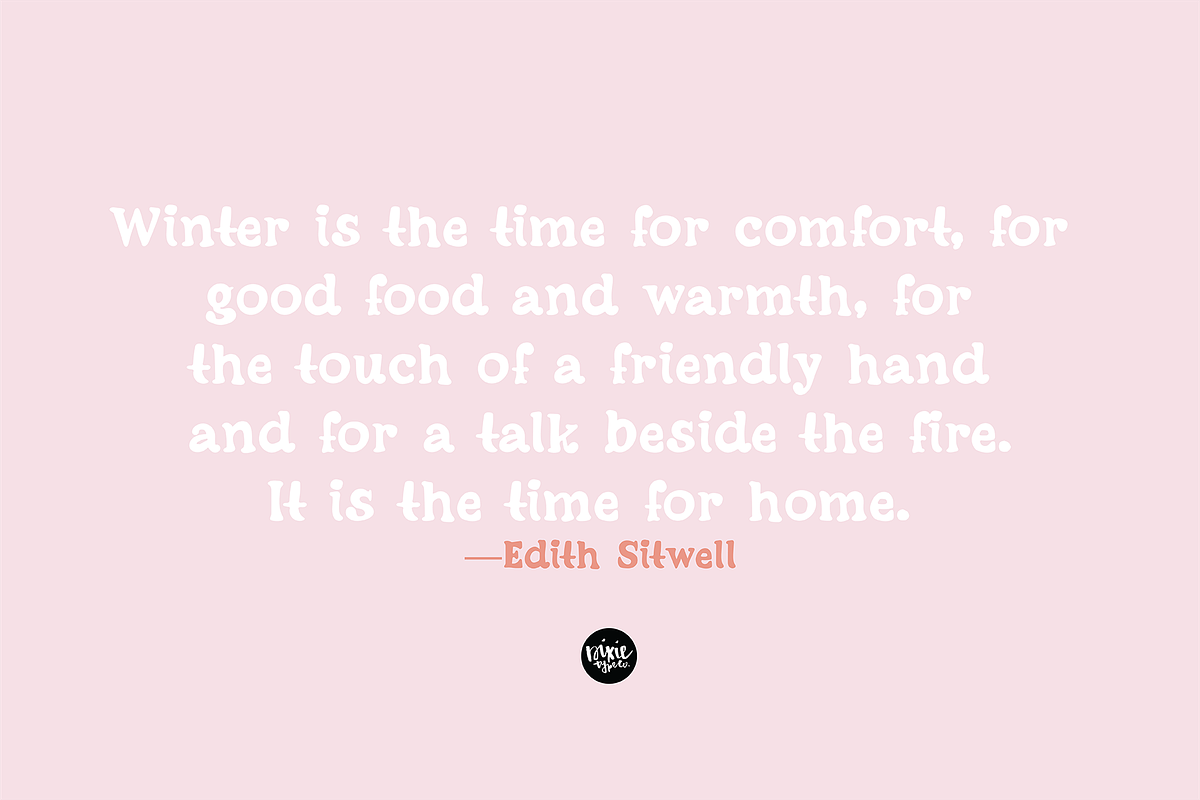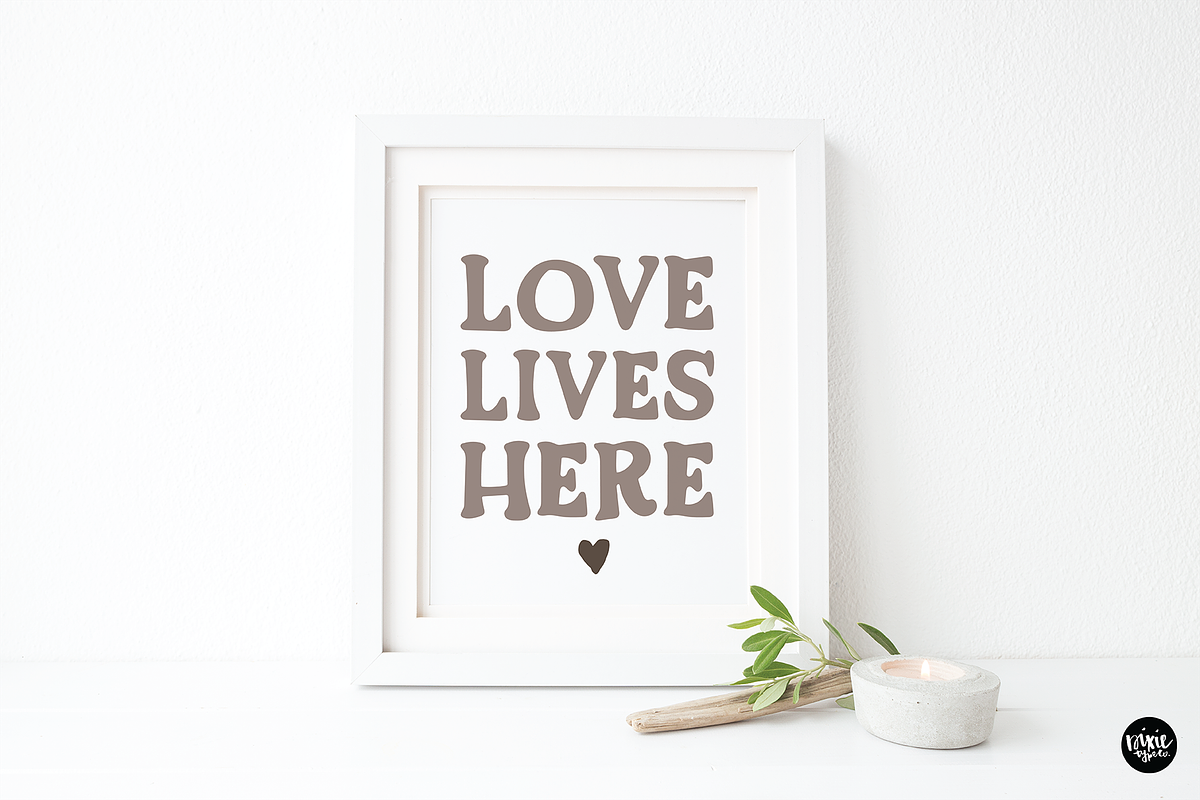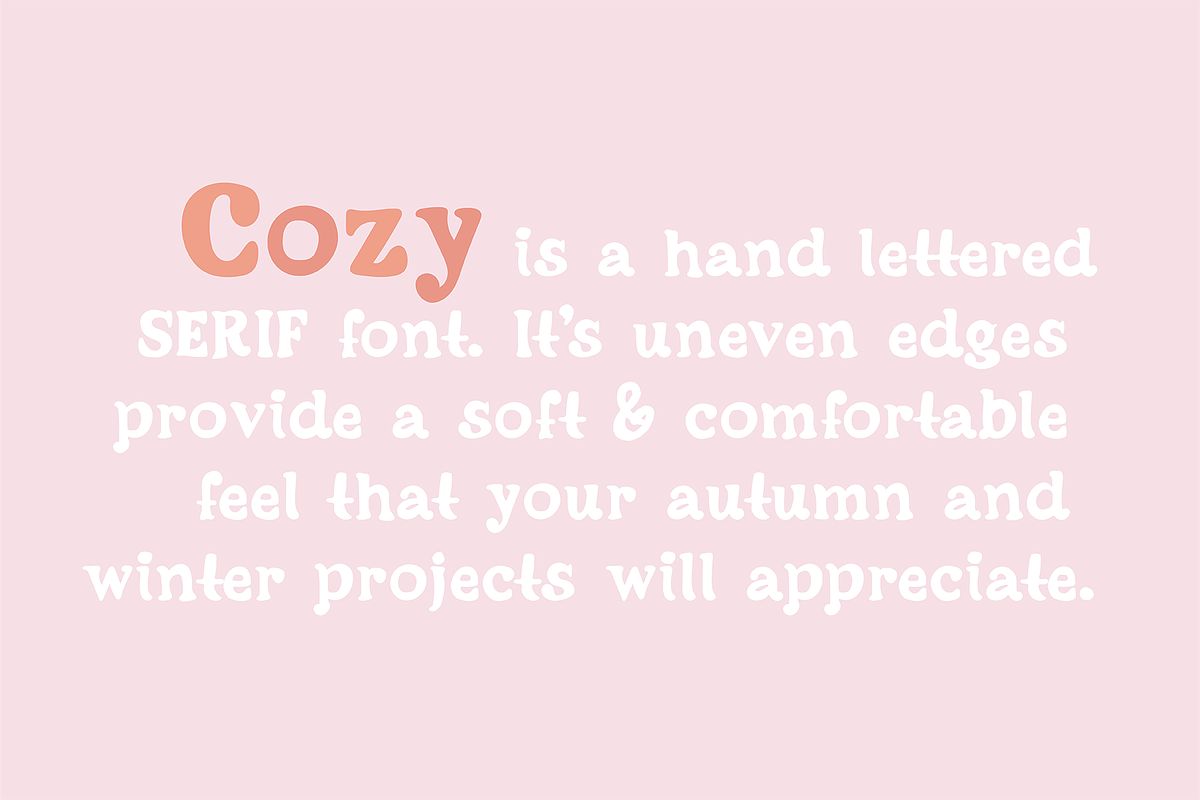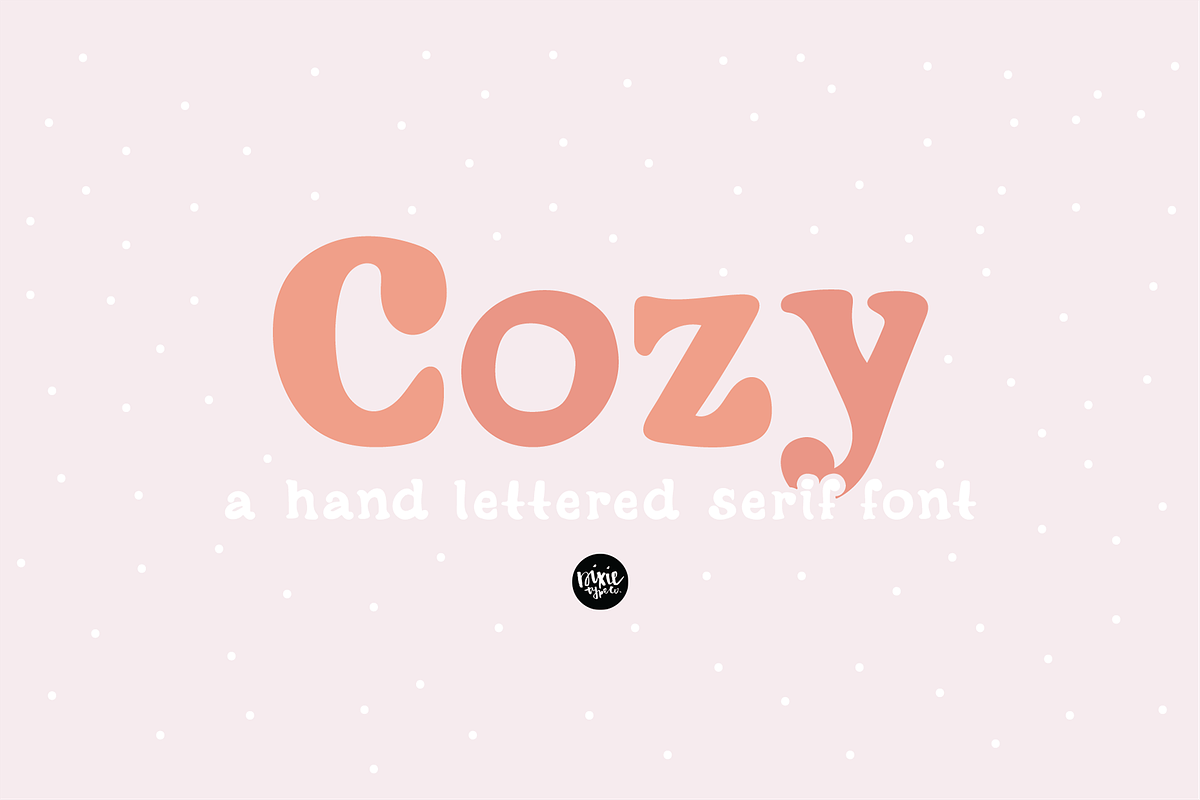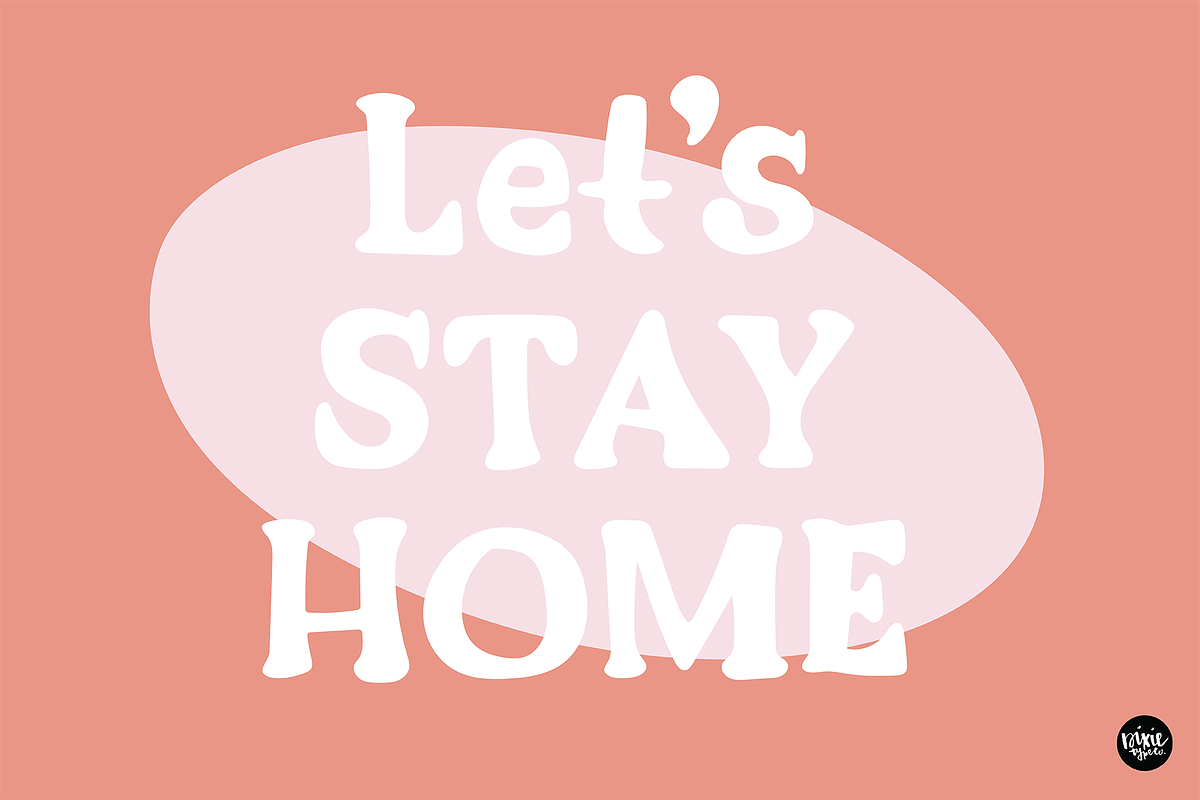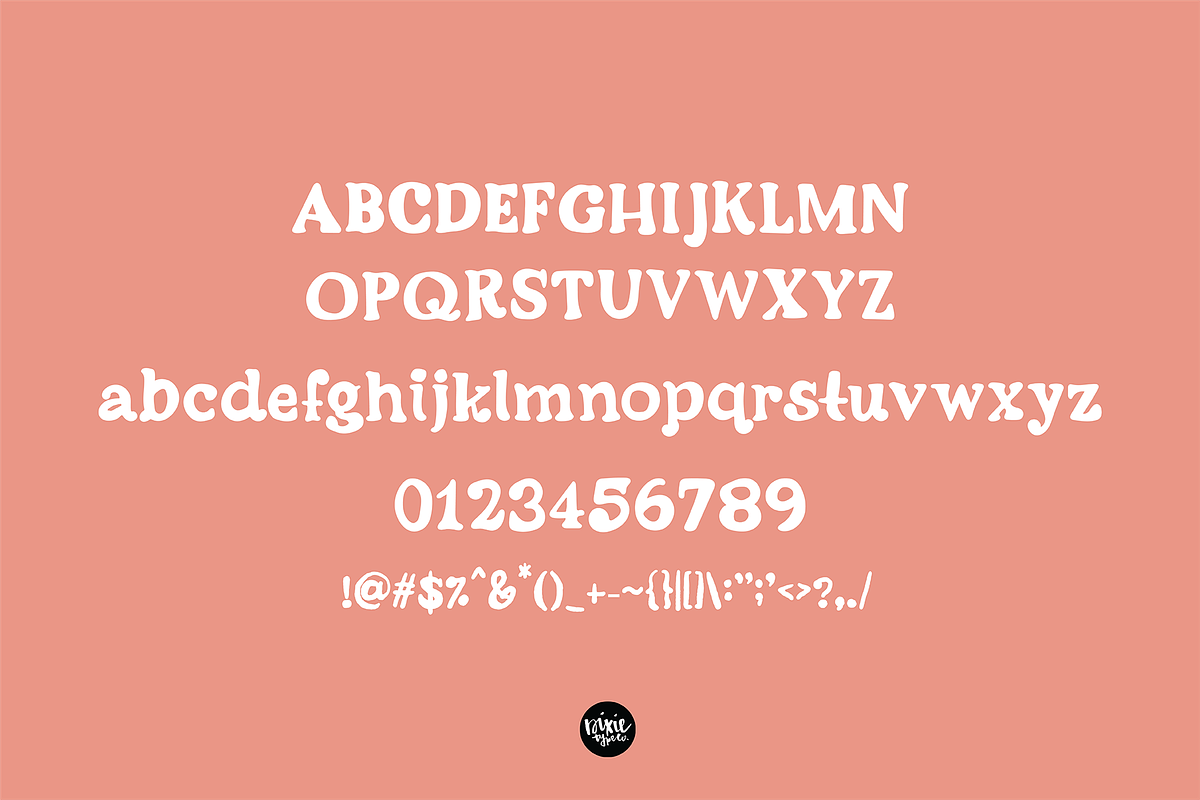
COZY a Friendly Serif .OTF Font
"Cozy" hand lettered bold serif installable font.
{ A typographic font hand lettered with love by Dixie Type Co. }
Cozy is a bold and soft hand lettered serif font. It makes a statement in a friendly way! This serif font is great for farmhouse designs, holiday type, and more. It will pair nicely with a script font.
Also includes language support of the following characters: ÁÂÃÄÅÇÐÈÉÊËÌ Í Î Ï ÑØÒÓÔÕÖÙÜÚÛẂŴẄẀÝỲáâãäåçèéêëì í î ï ñøòóôõöùüúûŵýỳ
- Font includes: Upper and lowercase glyphs, numbers, and punctuation.